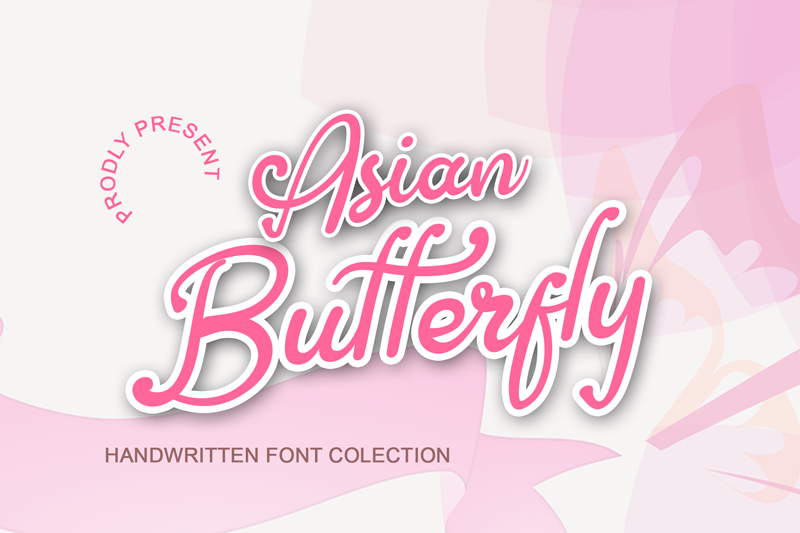
Font name: | Asian Butterfly |
Author: | Kateeng Ciu |
Note by Kateeng Ciu | |
Asian Butterfly handwritten Font is a great. It maintains its classy calligraphic influences while feeling contemporary and fresh. This versatility will appeal to a wide range of crafty ideas, from letterheads and titles to stationery. Attention : Asian Butterfly handwritten Font is prohibited to use this font for commercial purposes or for profit without the permission of the author/admin, without being known to use this font without permission, will be subject to sanctions 10x the specified price. This font is used only for demos (Demo license) If you want to use this font for commercial use please contact email: kateengciu@gmail.com If you want to see more other fonts, please click:https://www.creativefabrica.com/designer/kateengciu Any donations are very appreciated. Paypal account for donation: https://paypal.me/imronkateeng |